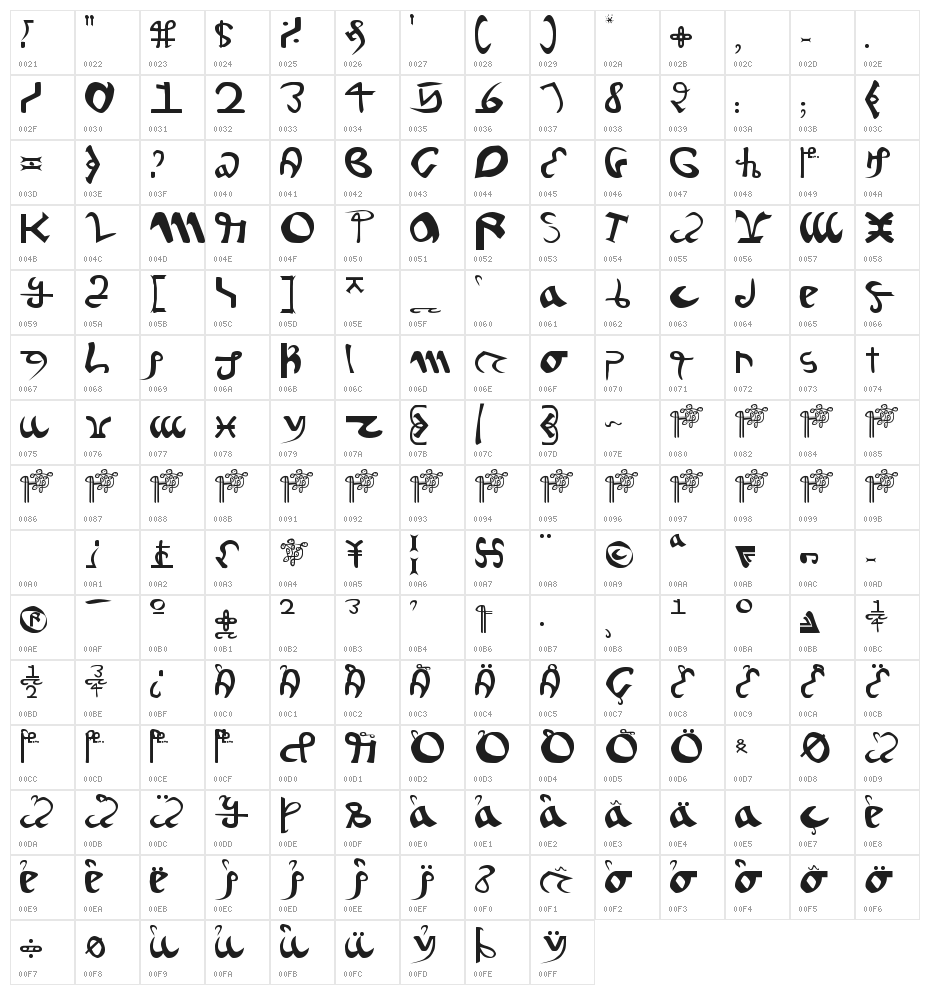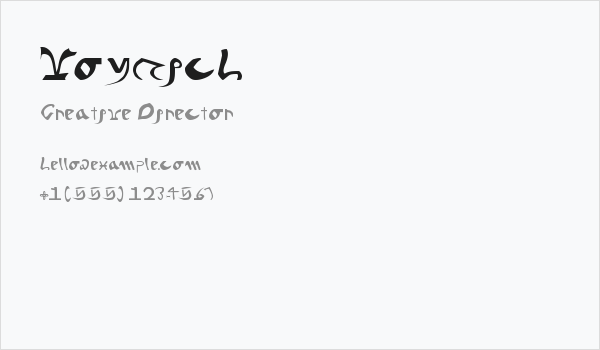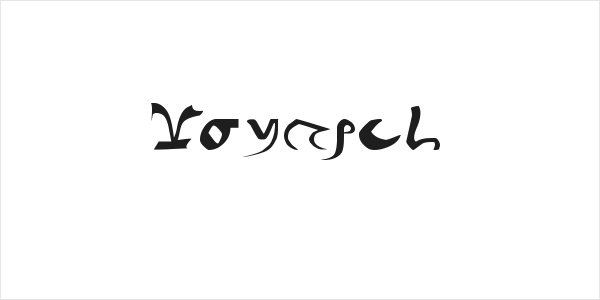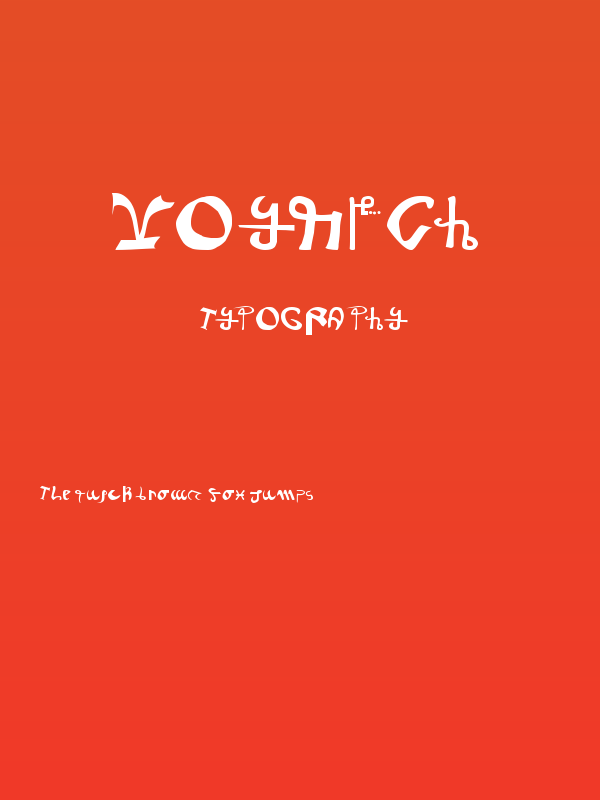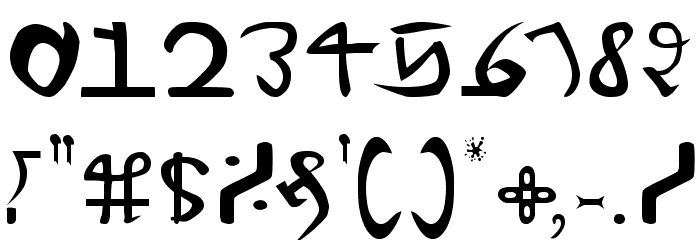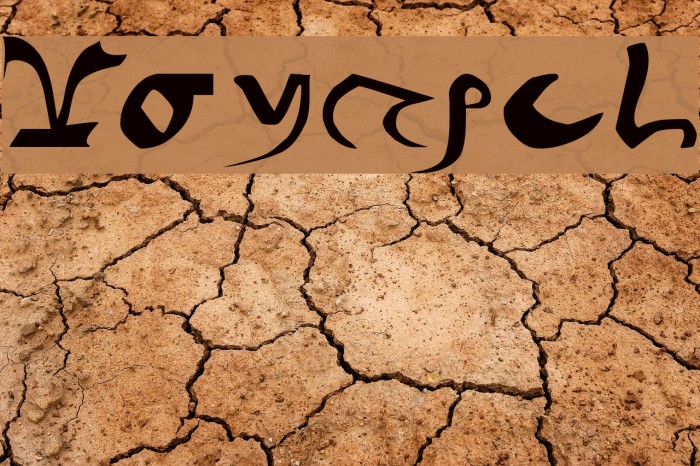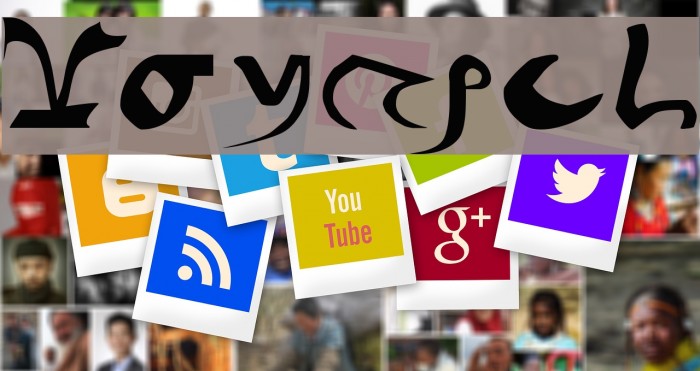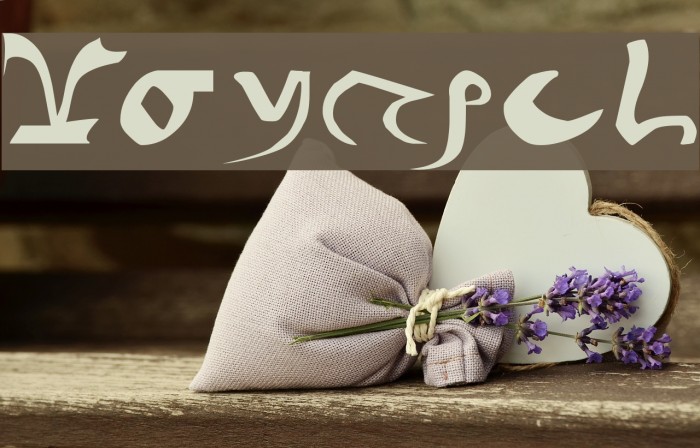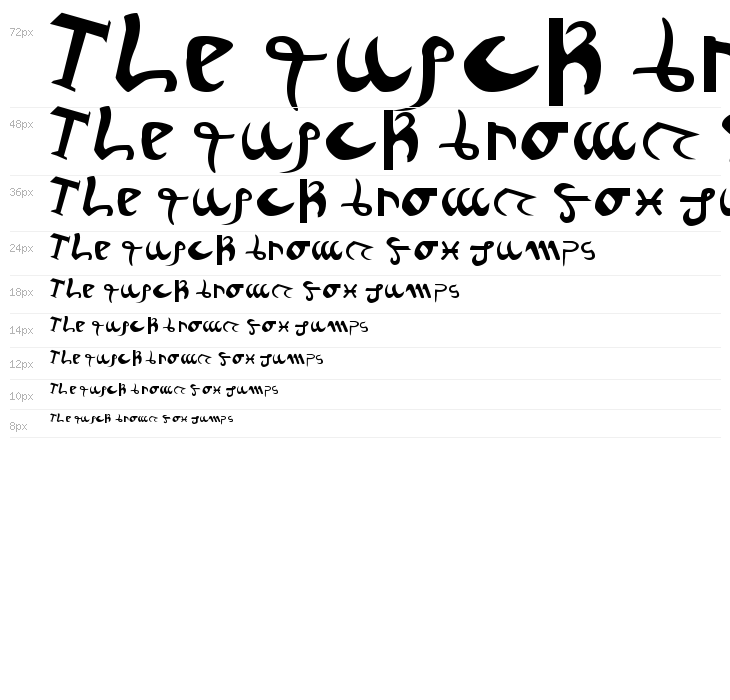
Voynich Font
Voynich Description
This font features a highly decorative and unique style, reminiscent of ancient scripts or mystical symbols. The characters are bold and have a flowing, almost calligraphic quality, with many incorporating unusual curves and angles. The uppercase letters are particularly elaborate, with some characters featuring additional strokes or flourishes that enhance their ornate appearance. The lowercase letters maintain a similar style but are slightly more subdued in their embellishments. Numbers and special characters follow the same design principles, ensuring a cohesive look throughout. This font's distinctiveness makes it suitable for creative and artistic projects where a touch of mystery or fantasy is desired.
| Overall Style | Mystical, Decorative |
| Use Case | Logos, Posters, Book Covers |
| Proposed Projects | Ideal for fantasy book covers, mystical-themed posters, or artistic branding projects. |